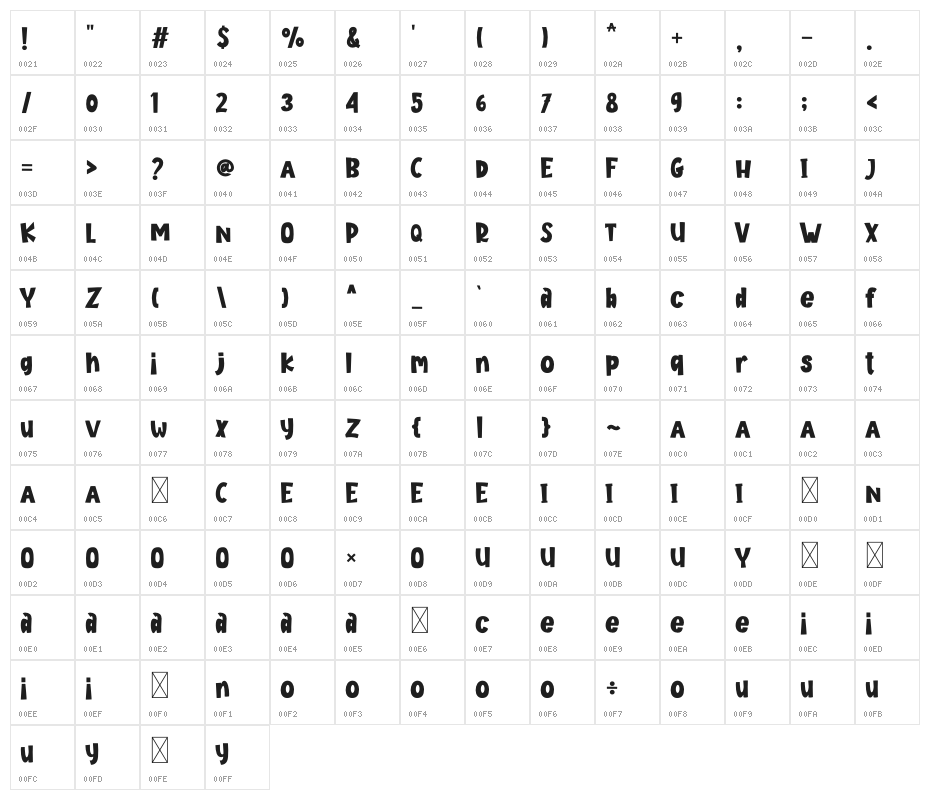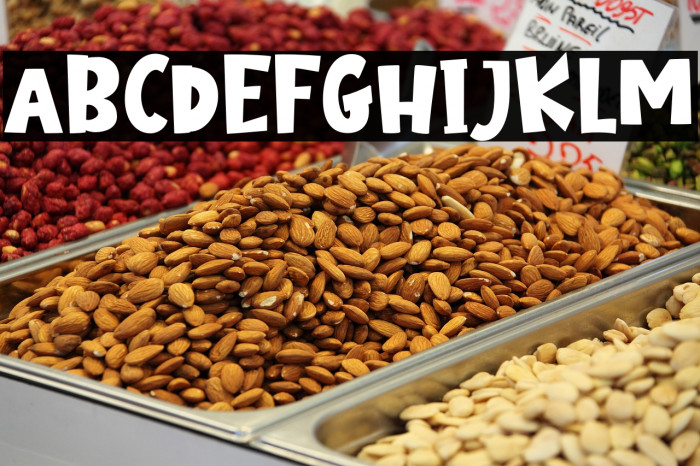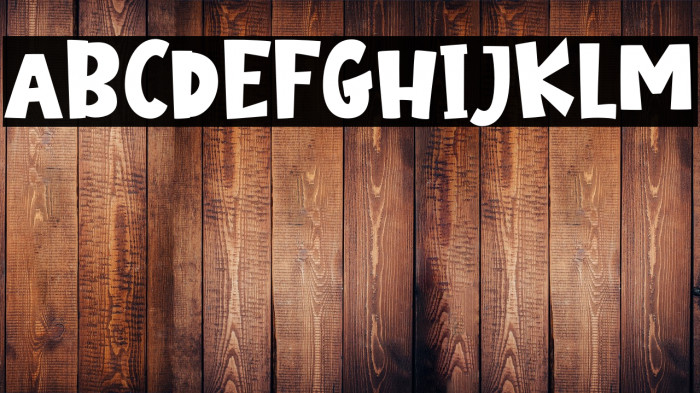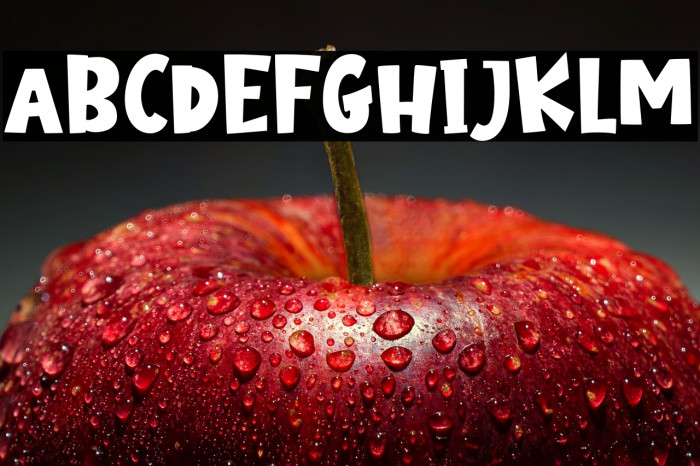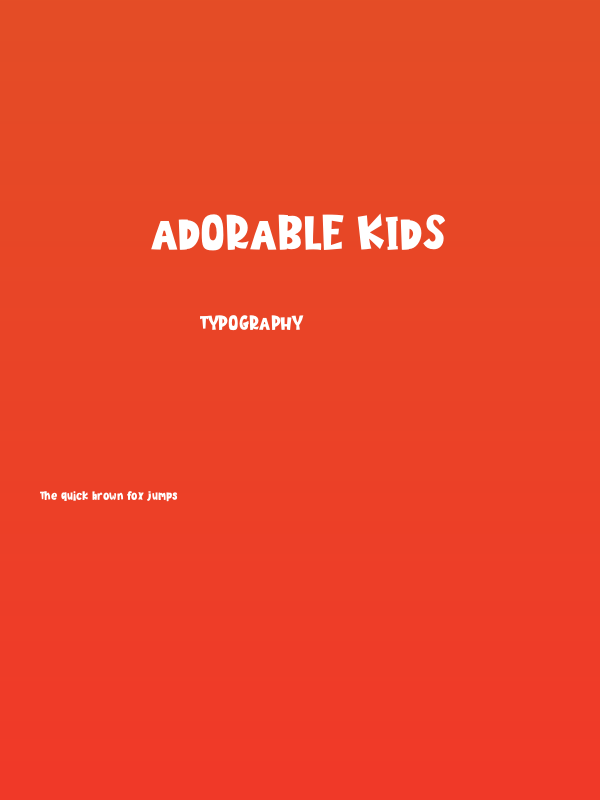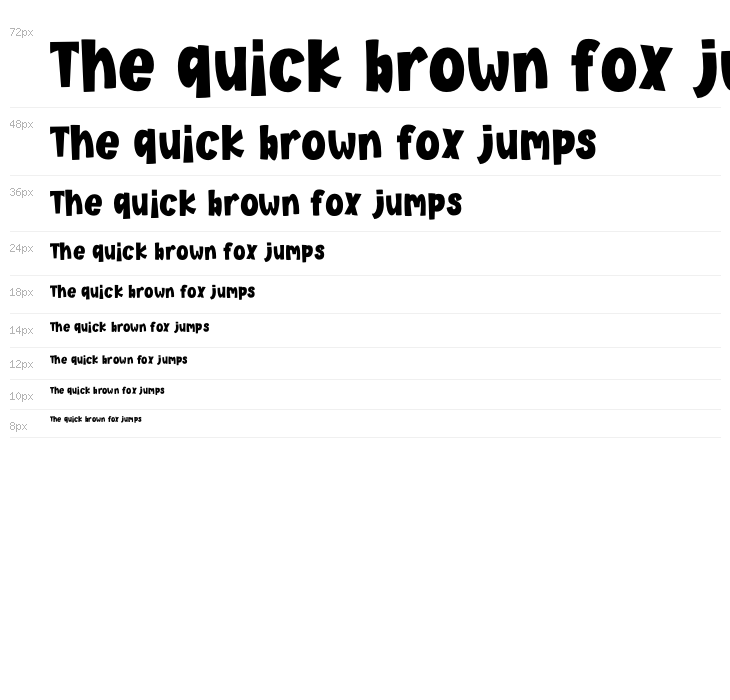
Adorable Kids Font
Adorable Kids Description
This playful and whimsical font features bold, rounded characters with a slightly uneven baseline, giving it a hand-drawn, childlike appearance. The uppercase and lowercase letters are distinct, with exaggerated curves and a friendly, approachable style. The numbers and special characters maintain the same playful aesthetic, making the font versatile for various creative projects. Its bold strokes and unique character shapes make it stand out, perfect for designs that require a fun and informal touch.
| Proposed Projects | Ideal for children's books, educational materials, playful branding, and creative posters. |